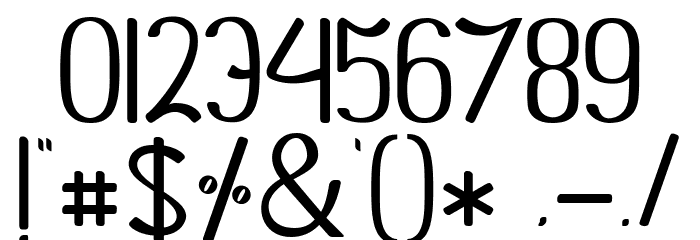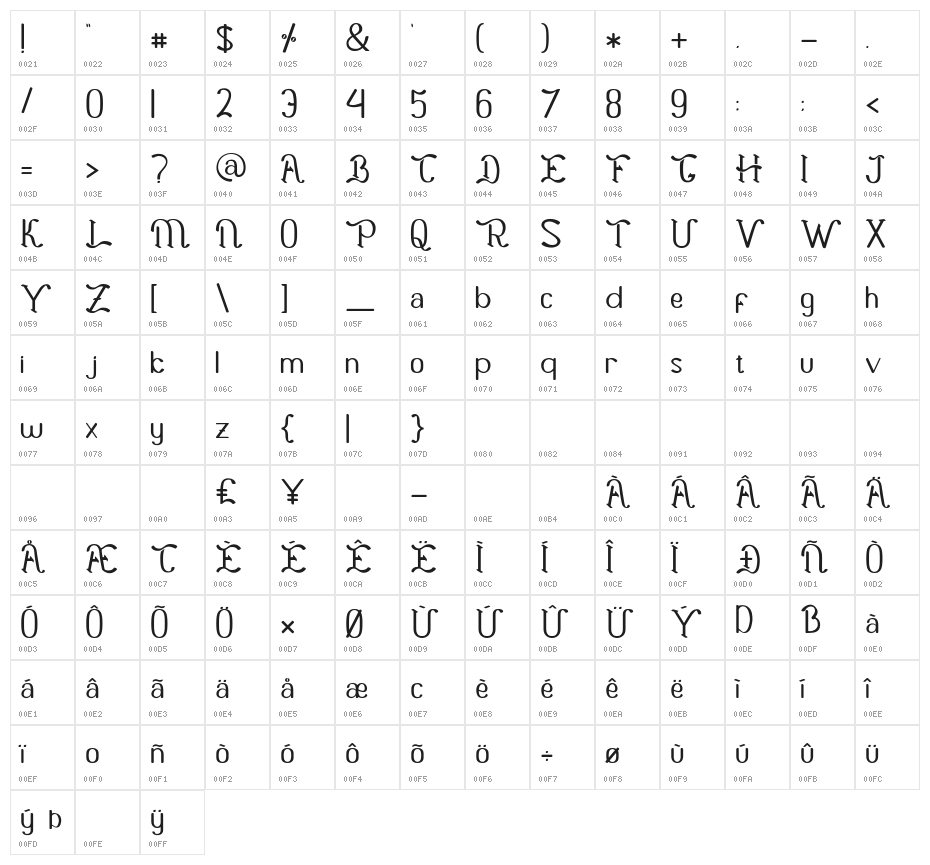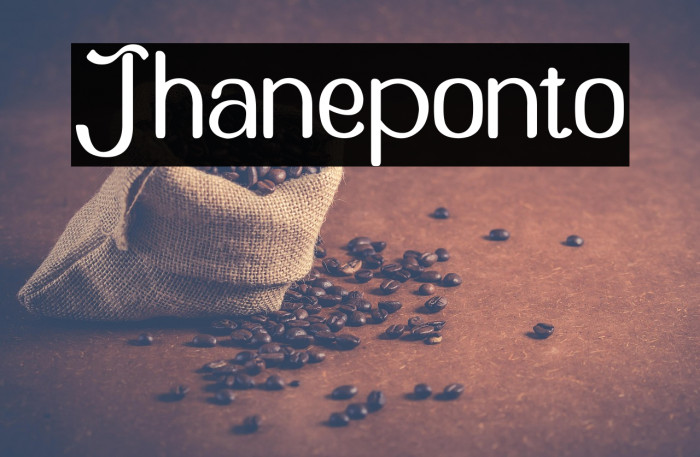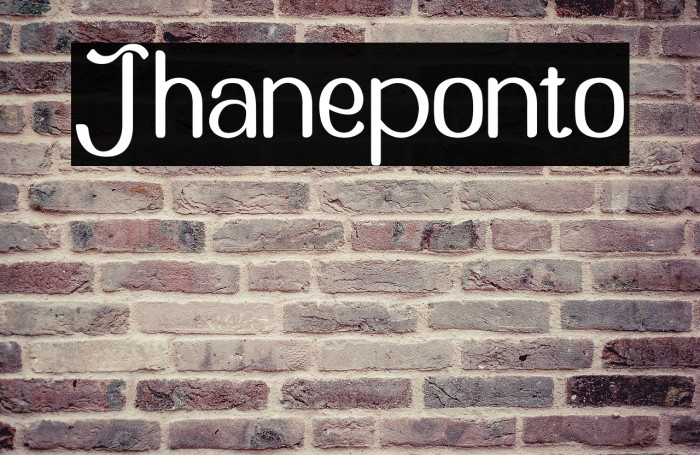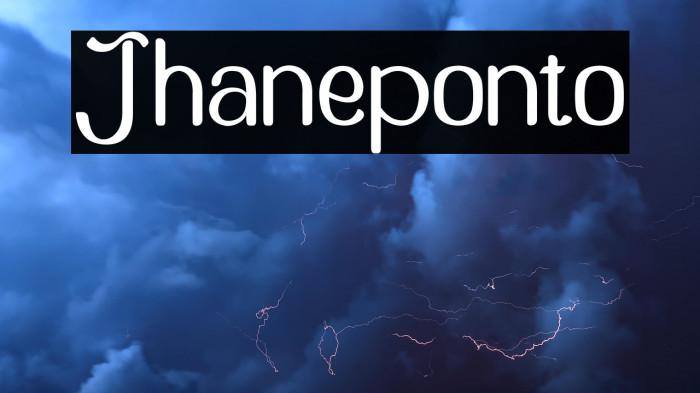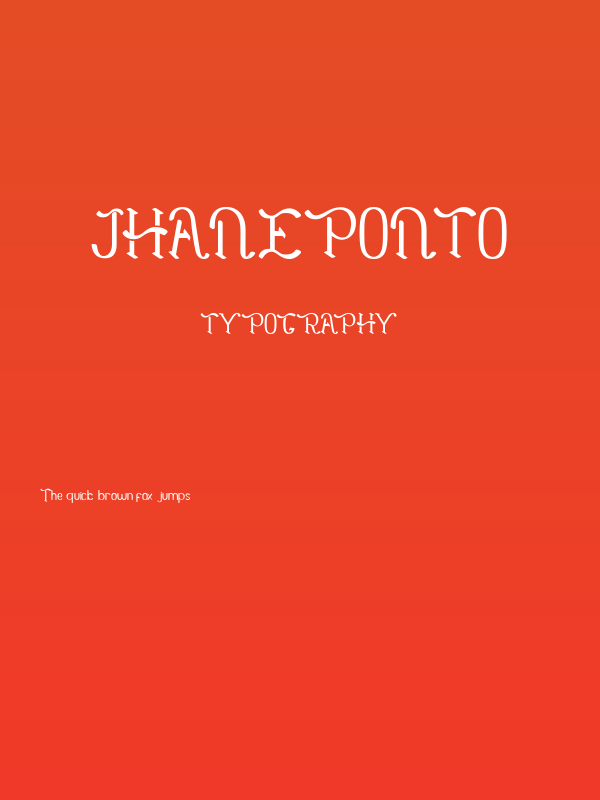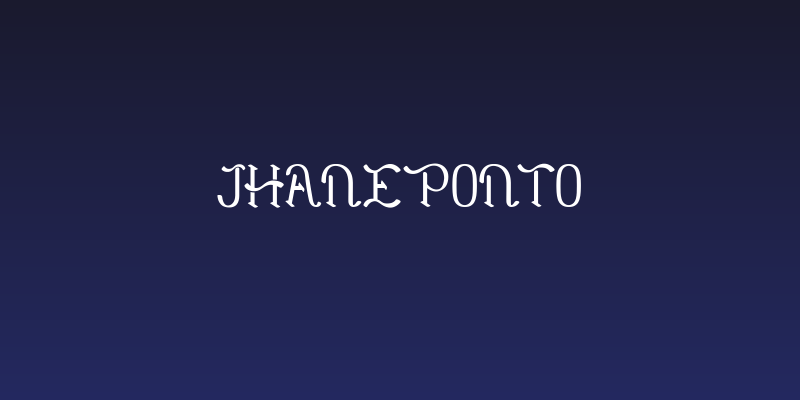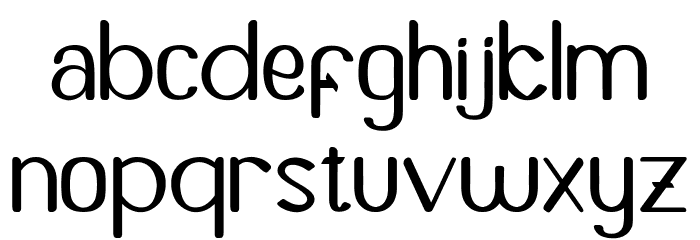
Jhaneponto Font
Jhaneponto Description
This font features a unique blend of decorative and modern elements, characterized by its distinct curves and flourishes on the uppercase letters. The lowercase letters maintain a more streamlined and clean appearance, offering a nice contrast to the ornate uppercase. The numerals are bold and easily readable, with a slight artistic flair that complements the overall design. Special characters are thoughtfully designed to match the font's aesthetic, making it versatile for various uses. The font's style is both eye-catching and functional, suitable for creative projects that require a touch of elegance and modernity.
Use CaseLogos, Headlines, Creative design
Proposed ProjectsIdeal for branding, invitations, posters, and creative design projects.